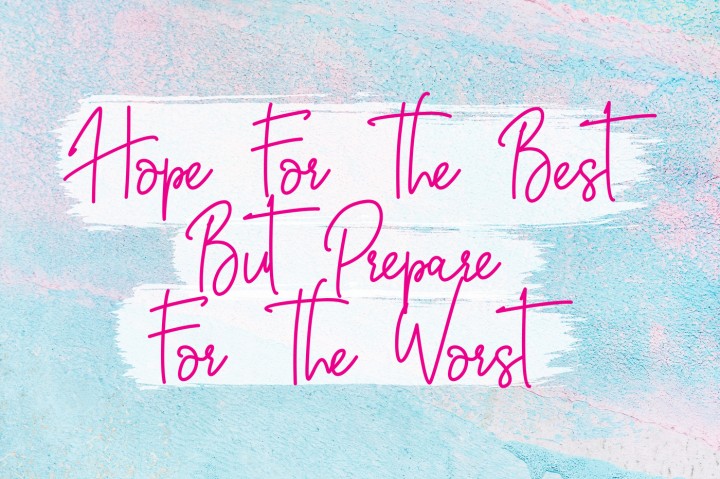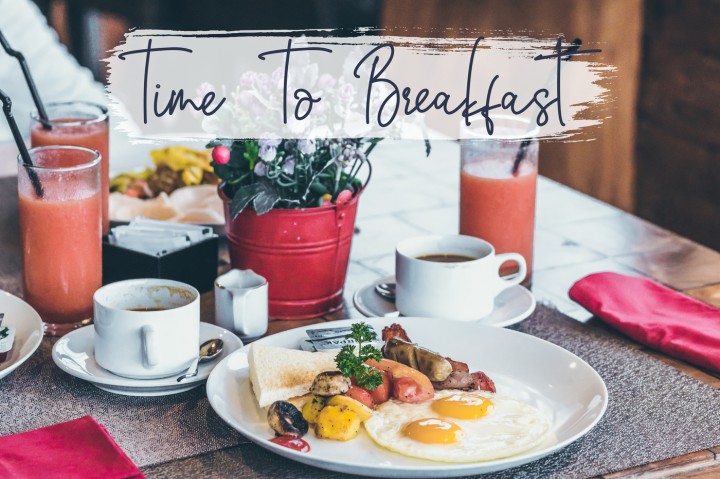
Ballroom Handwritten Font
Ballroom Font with natural handwriting style perfect for many different project such as logos & branding, invitation, stationery, wedding designs, social media posts, advertisements, product packaging, poster, product designs, label, photography, watermark, special events or anything, quotes, fashion, etc…